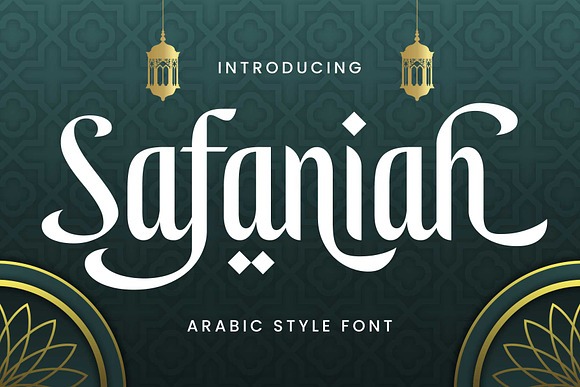
Safaniah Font
About Safaniah
Transform your designs with Safaniah, our newest Arabic-style font crafted to elevate your creative projects. Its sleek, condensed shape is ideal for bold headlines or standout display text, bringing a touch of Middle Eastern elegance to any design.